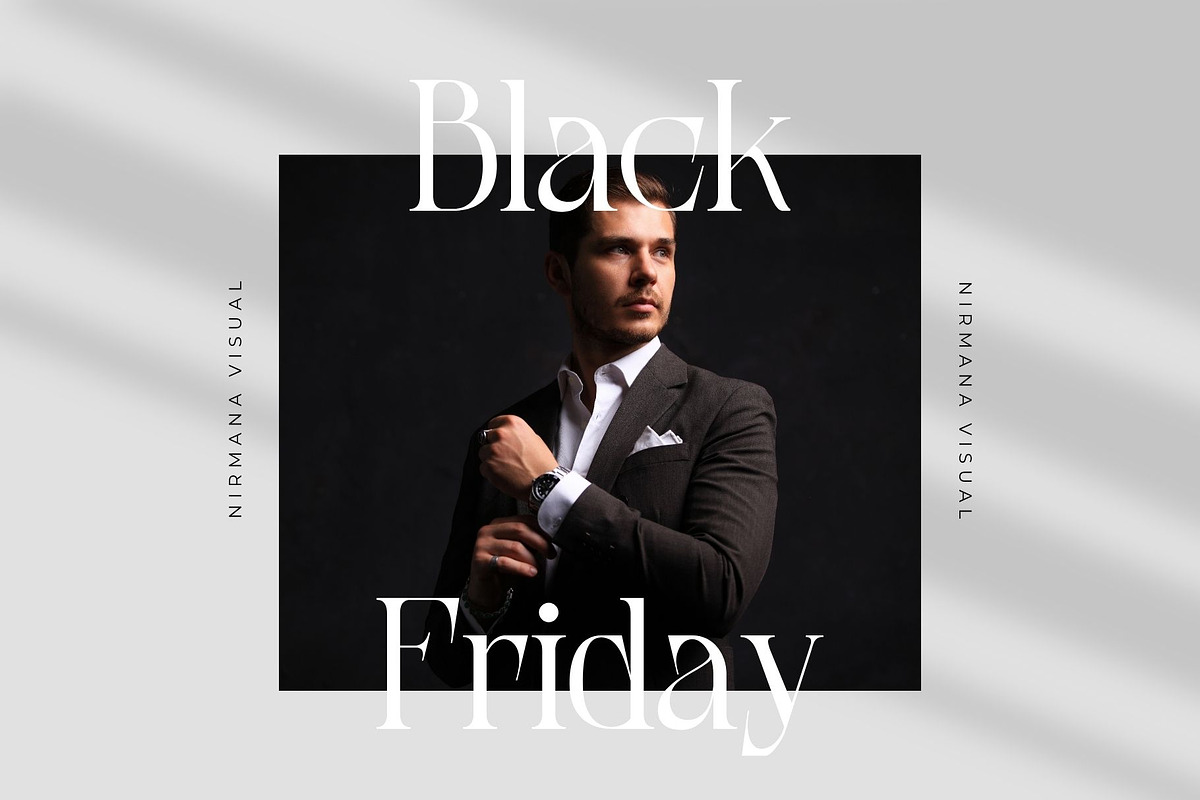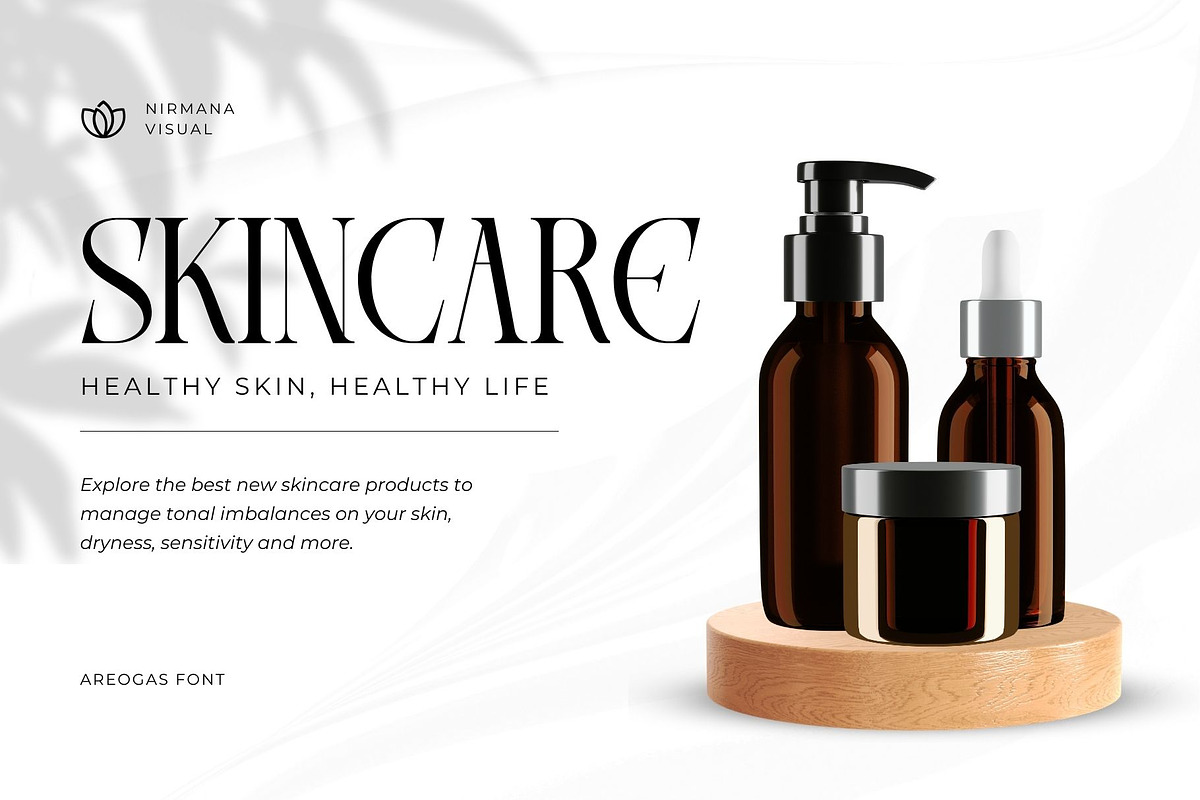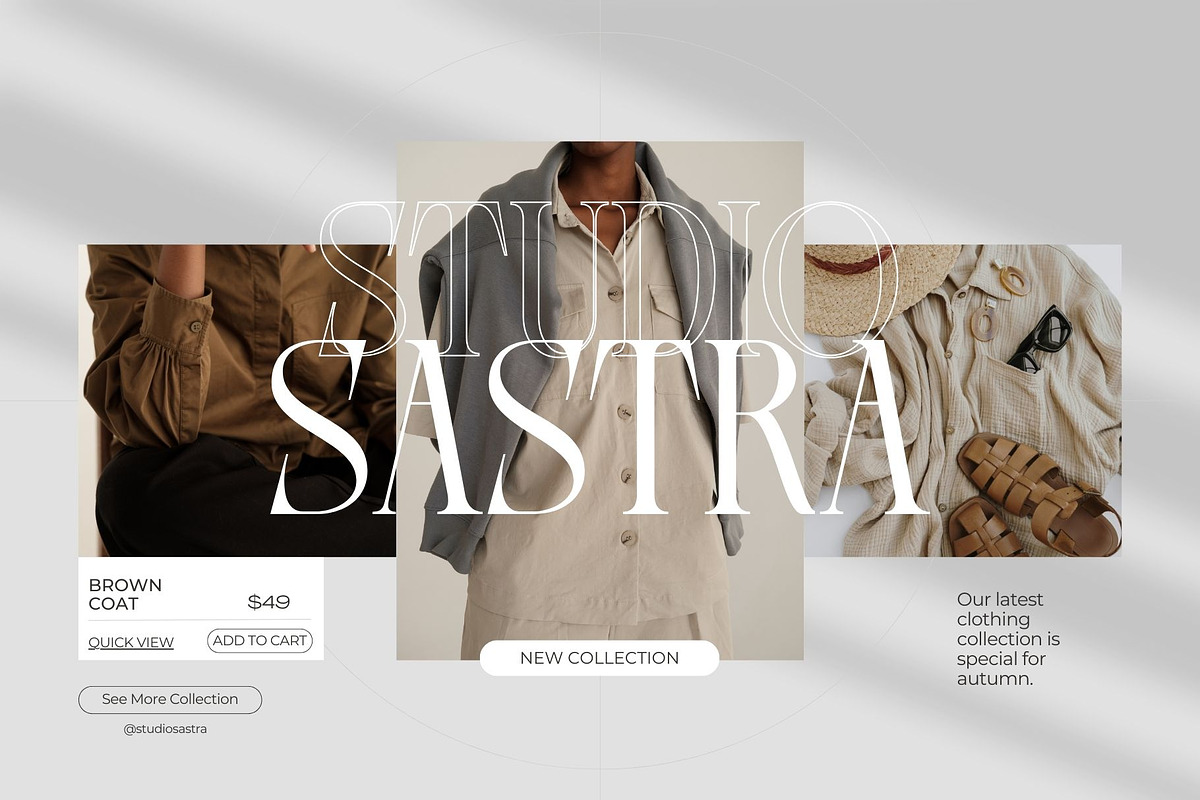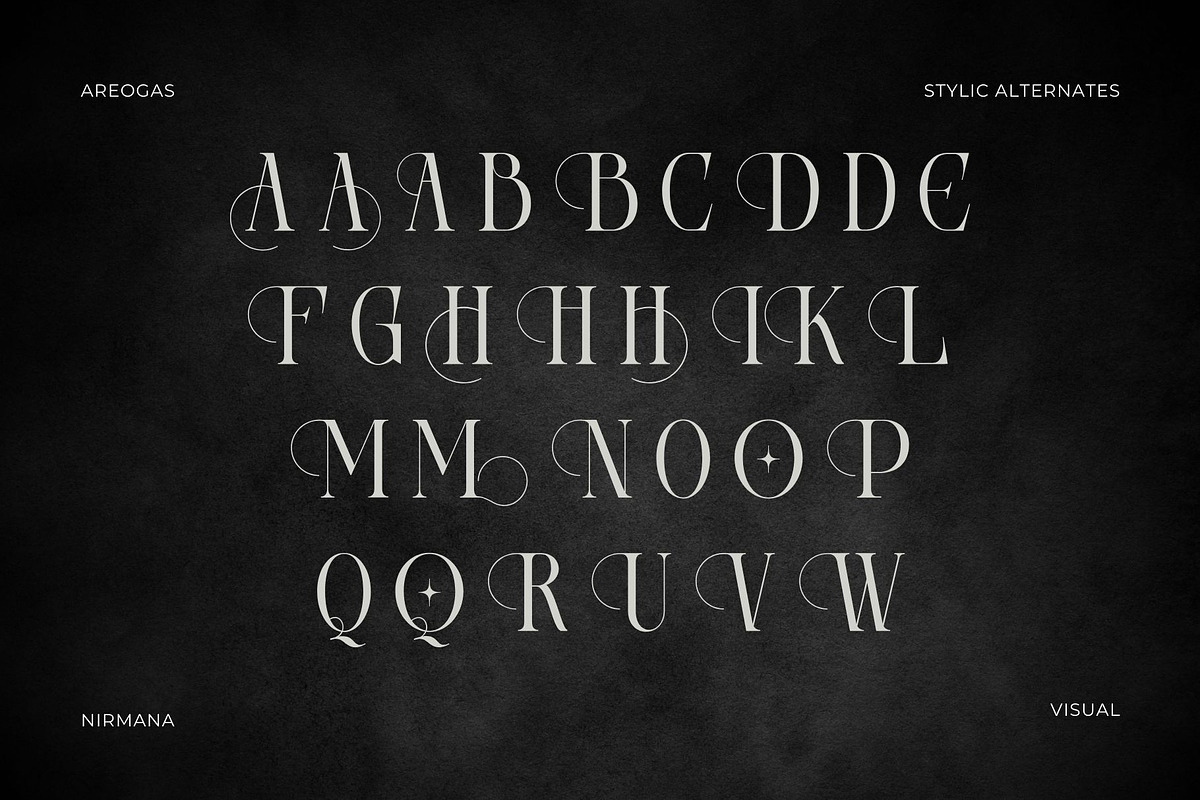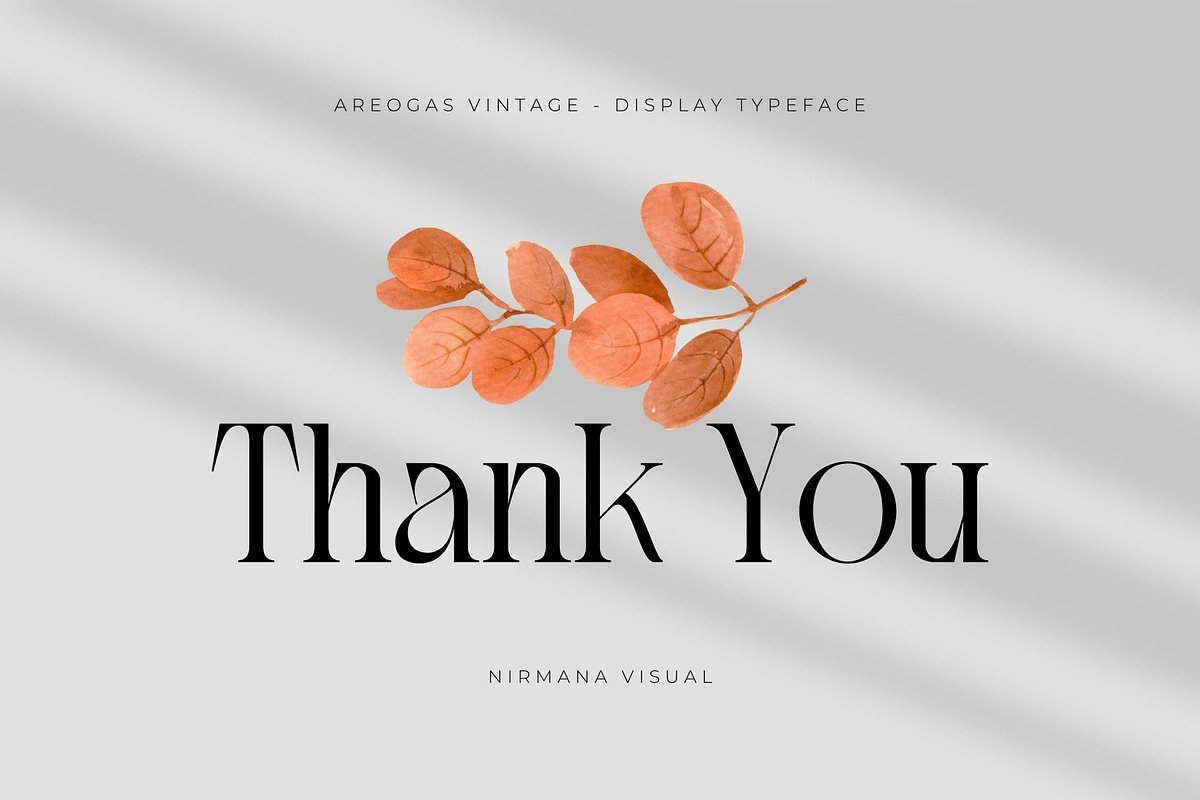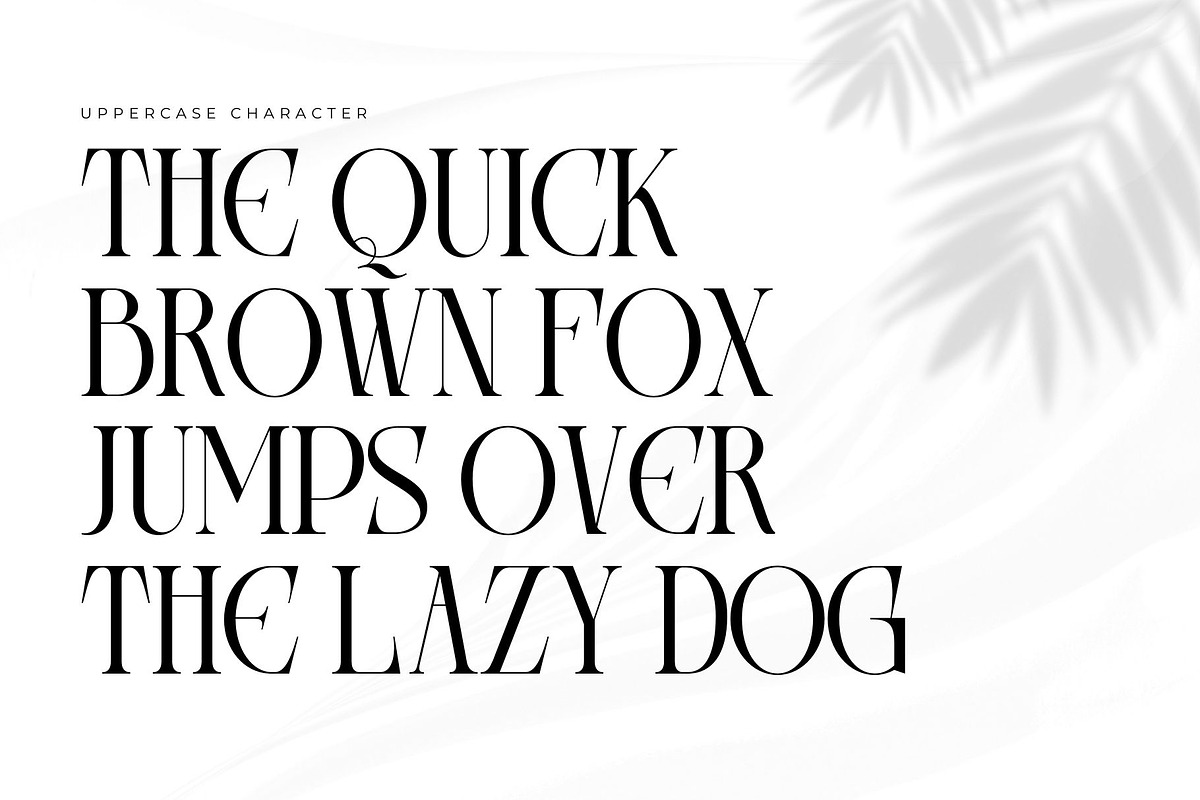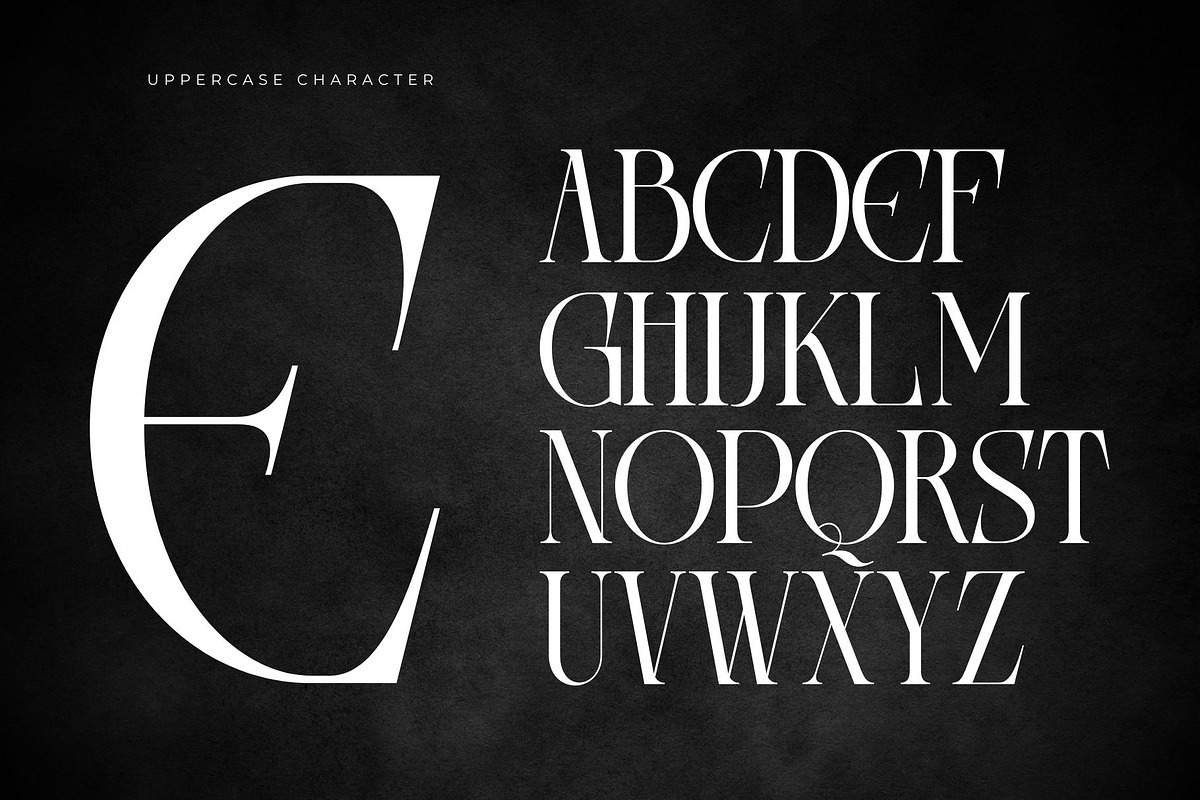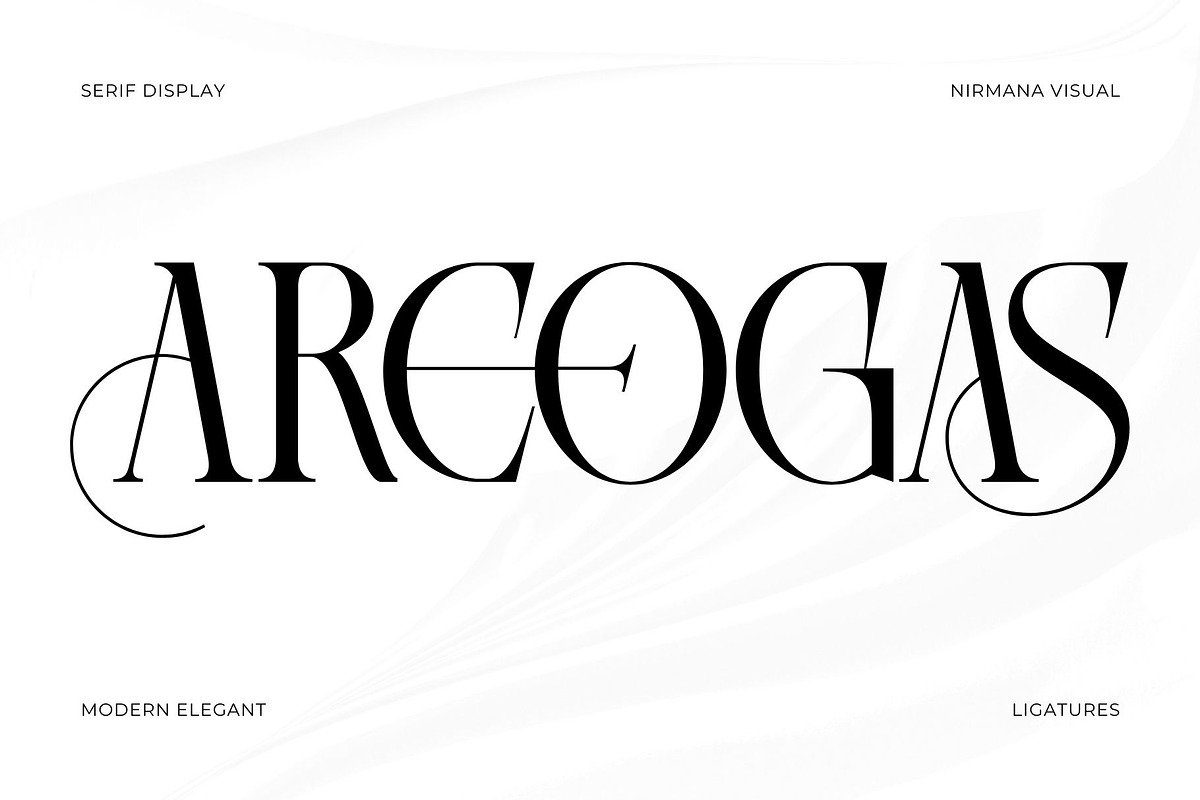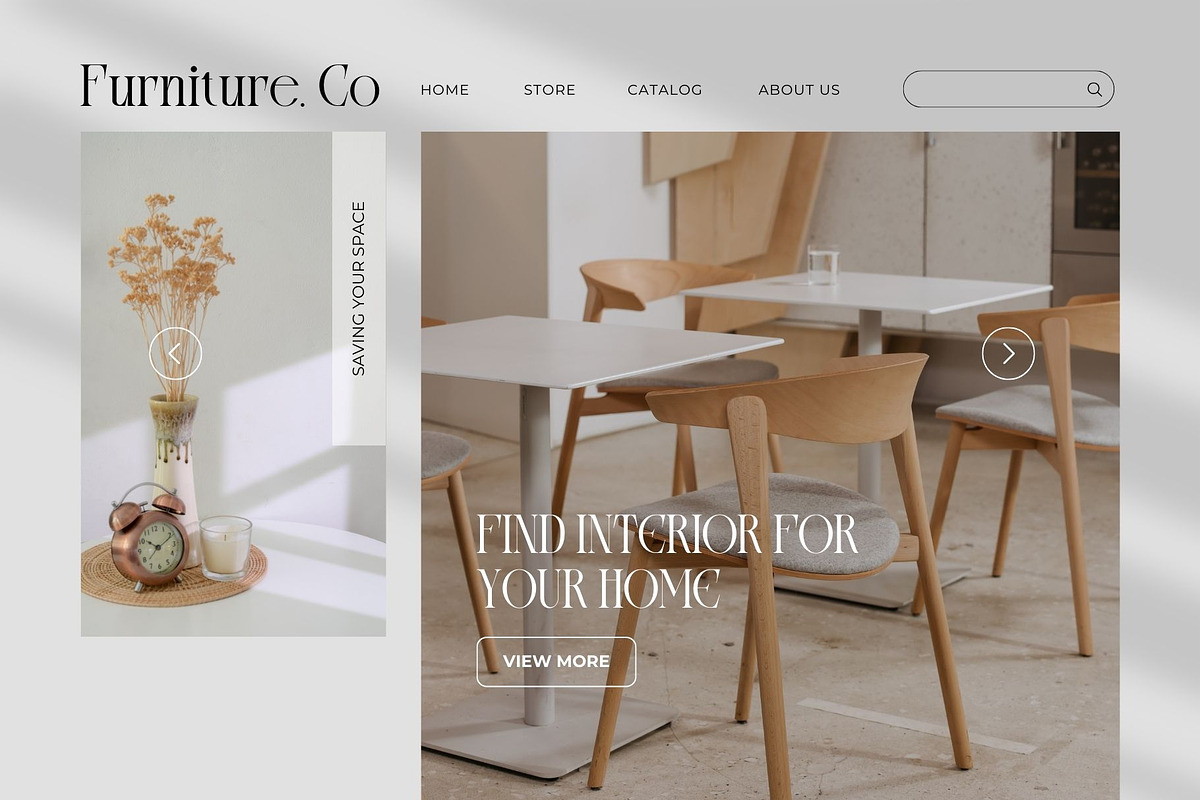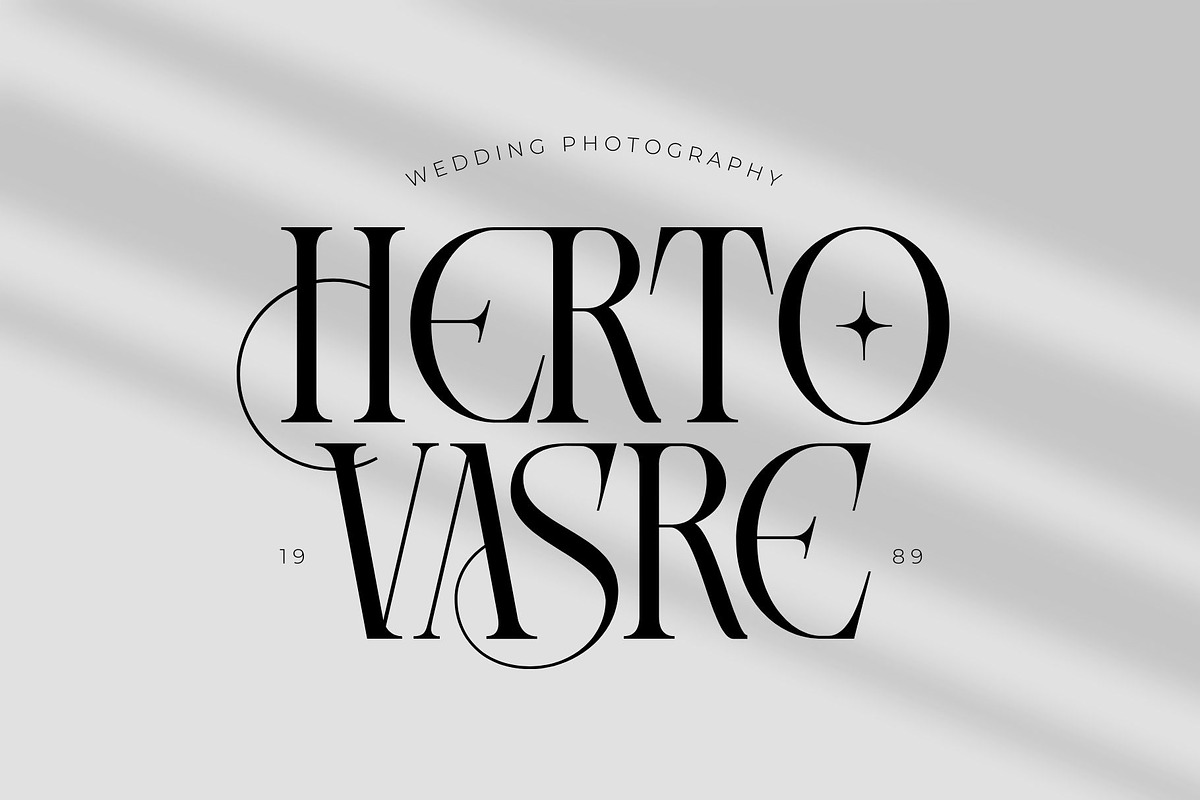
Areogas Vintage - Modern Serif
Areogas Vintage offers beautiful typographic harmony for a diversity of design projects, including logos & branding, social media posts, advertisements & product designs.